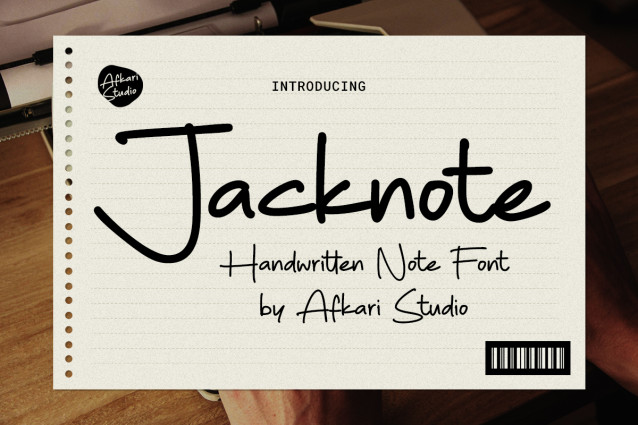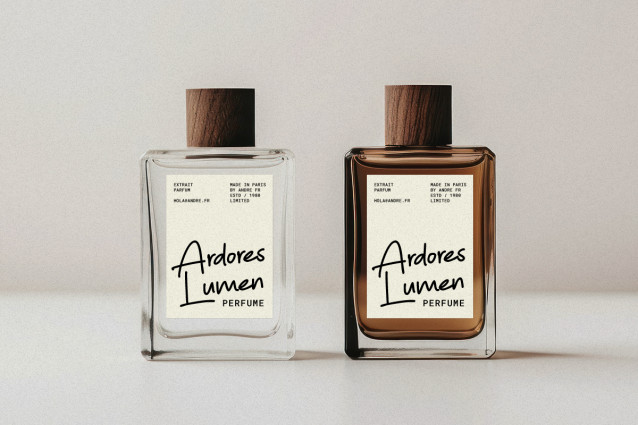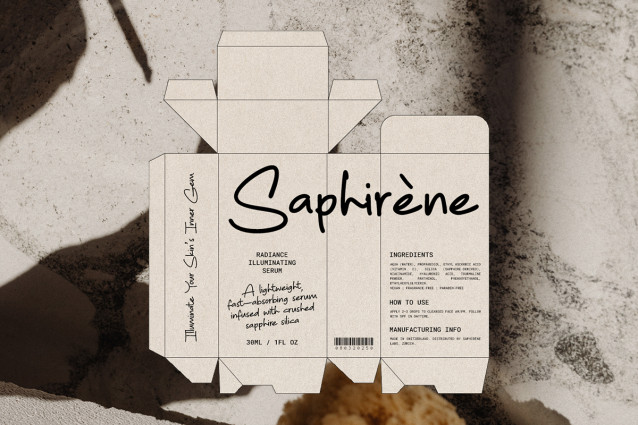
Jacknote Handwritten Font
Jacknote Handwritten Font – Handwritten Marker Note Font is a dynamic and expressive handwritten font that captures the charm of real marker handwriting. Designed to add personality and warmth, this font comes in Regular and Bold styles, making it versatile for a wide range of creative projects. Whether you’re working on personal notes, branding, or digital content, Jacknote delivers an authentic and natural look.